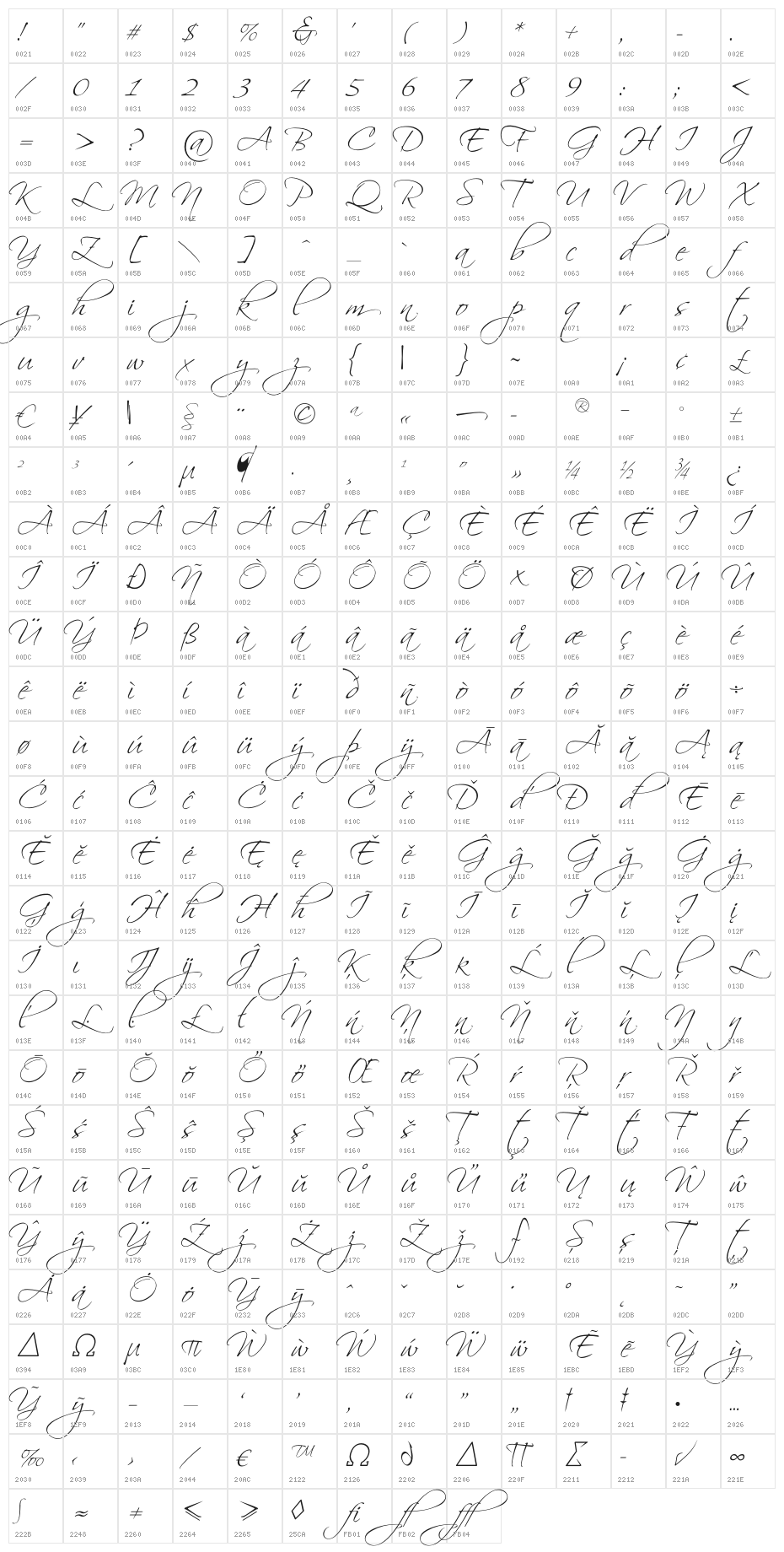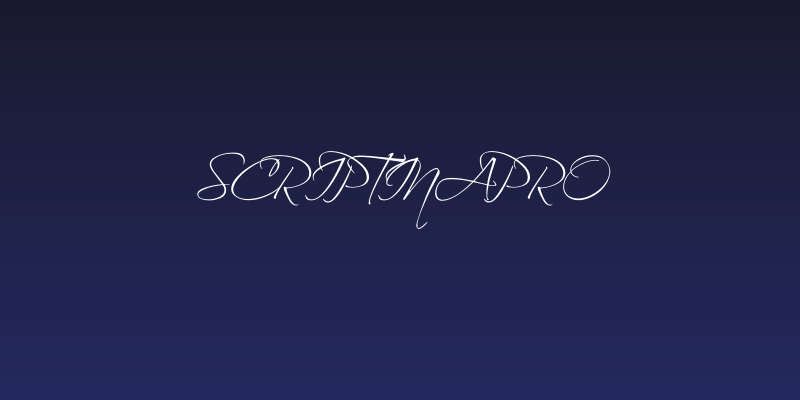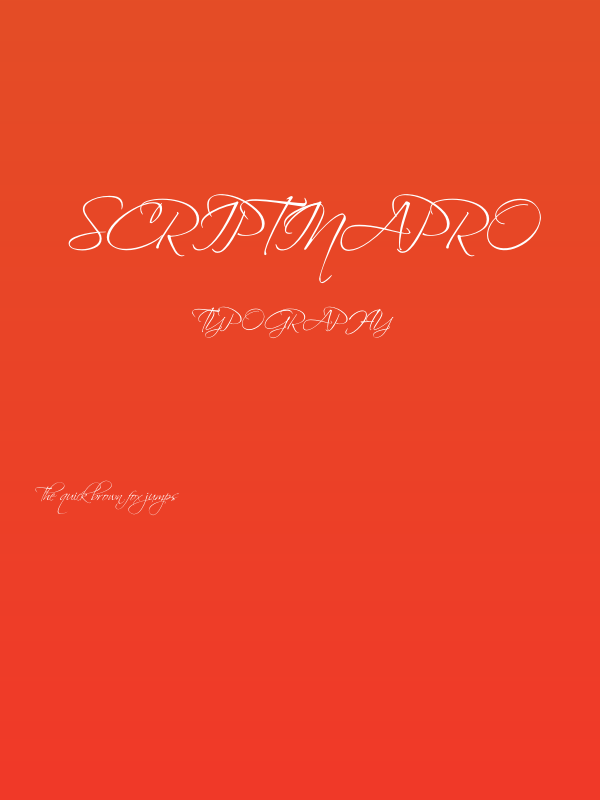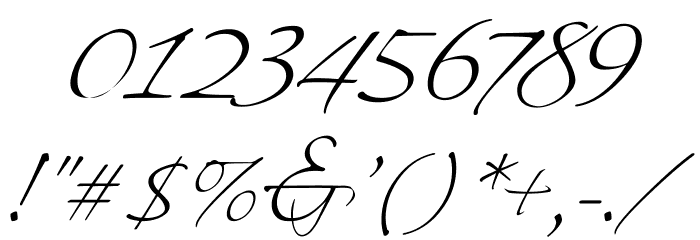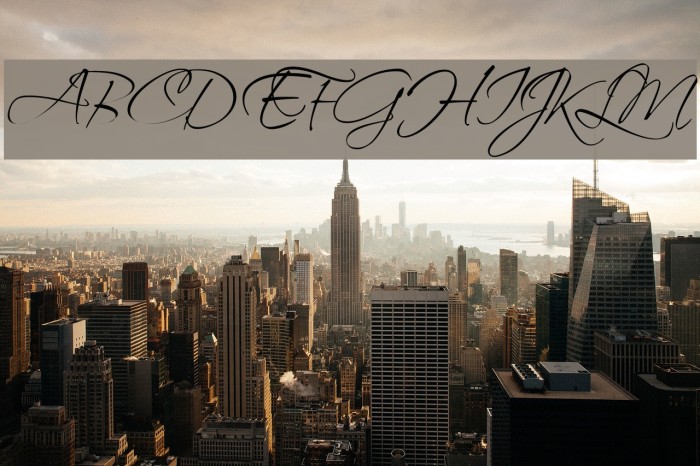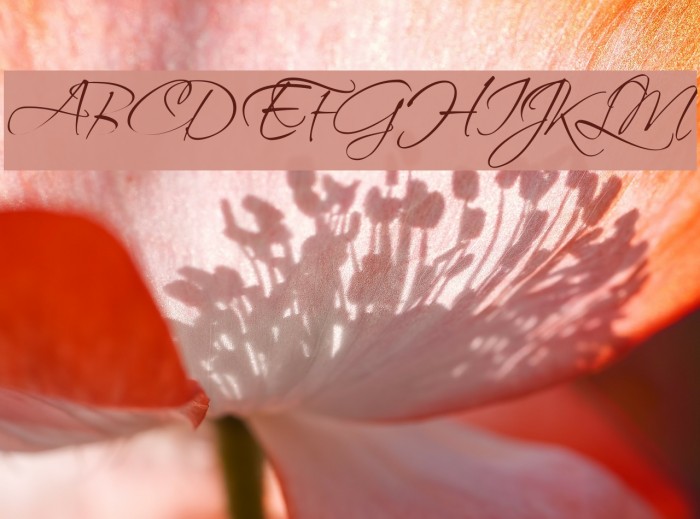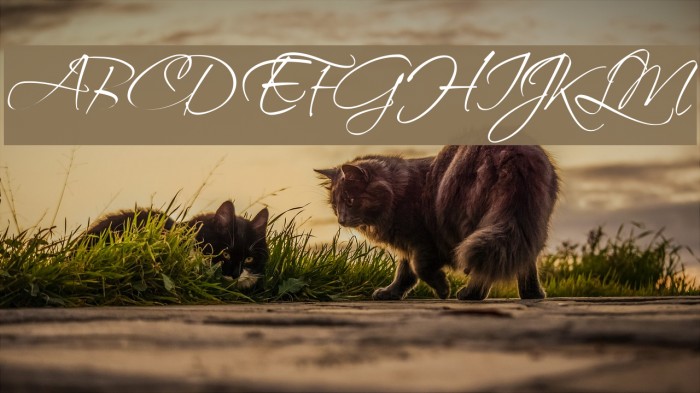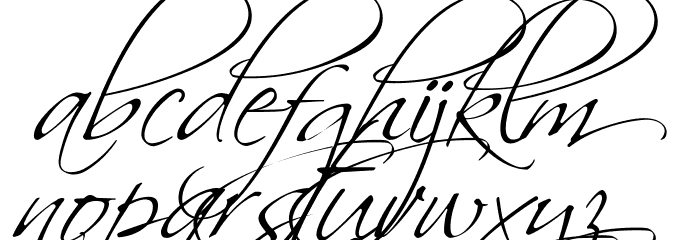
ScriptinaPro Font
ScriptinaPro Description
This font exudes elegance and sophistication with its flowing, cursive style. The characters are intricately designed with sweeping curves and delicate lines, giving it a handwritten appearance. The uppercase letters are particularly elaborate, featuring extended strokes and flourishes that add a touch of drama. The lowercase letters maintain a consistent flow, enhancing readability while retaining the font's artistic flair. Numbers and special characters are crafted with the same attention to detail, ensuring a cohesive look across all text elements. This font is ideal for projects that require a personal, elegant touch, such as invitations, greeting cards, or branding materials.